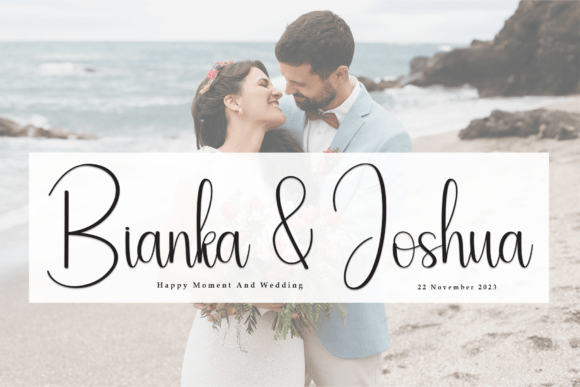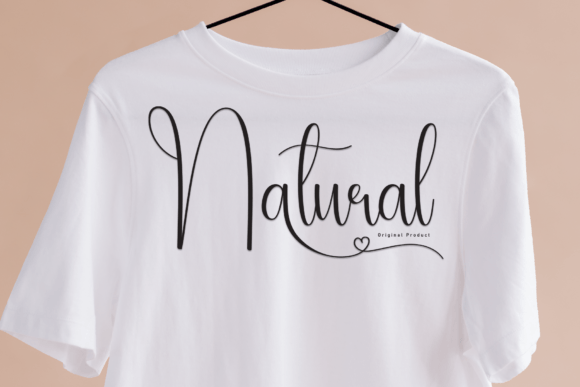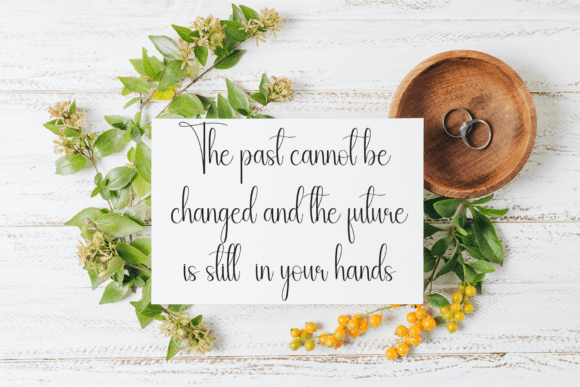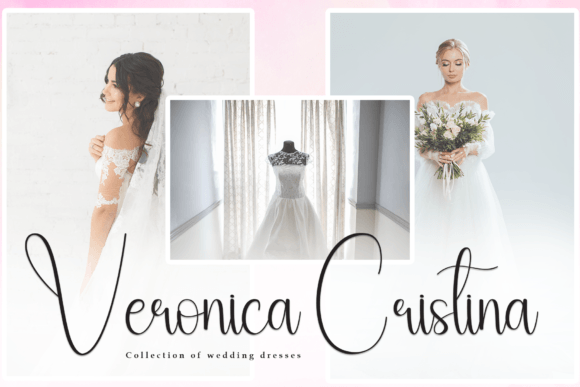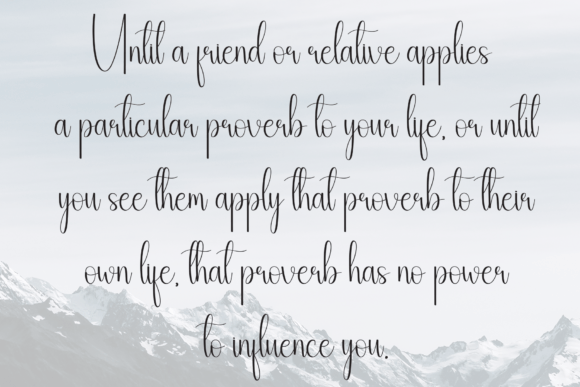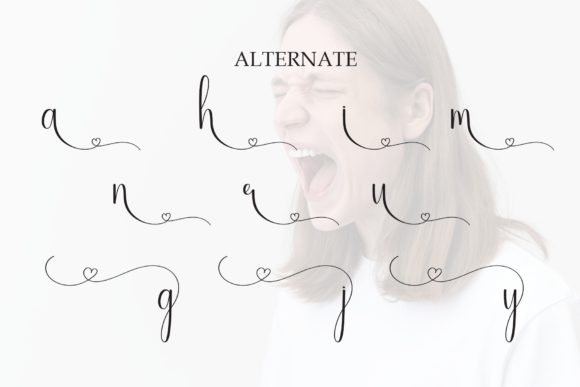
Introduction to Screaming Font
Have you ever been working on a creative project and just needed that one perfect font to bring it all together? I’m sure you have, and for many designers, that moment is what makes all the late nights and early mornings worth it. I still remember the feeling of excitement I got when I stumbled upon the perfect font for my best friend’s wedding invitation – and that’s exactly where our story begins with the lovely Screaming Font.
This sweet and friendly handwritten display font is a game-changer for any design project that needs a fun touch. With its cute and playful style, the Screaming Font is perfect for writing wedding invitations, cards, or any other design that requires a dash of whimsy. Whether you’re looking for a free download or a high-quality design resource, this font is sure to delight.
What sets the Screaming Font apart is its versatility – it’s perfect for both digital and print designs, and even comes with a transparent background option for added flexibility. Whether you’re a seasoned designer or just starting out, this font is a valuable addition to your design arsenal, and I’m excited to share more about it with you.
Key Features of Screaming Font
- High-quality font with a unique, screaming design, perfect for creative projects that require attention-grabbing text.
- Designed to be highly legible, even at small font sizes, making it perfect for use in titles, headings, and other prominent design elements.
Honest Review: Screaming Font
I recently stumbled upon the Screaming Font while searching for a unique design resource for a creative project. I was excited to give it a try, and here’s my honest review.
- The high quality of the font is immediately apparent, with clean lines and a professional feel.
- The font may not be suitable for all types of projects, particularly those that require a more conservative or traditional look.
- The font can be a bit overwhelming if used in excess, so be sure to use it sparingly.
Overall, I’m impressed with the Screaming Font. It’s a great addition to any designer’s toolkit, and I can see it being a valuable resource for a wide range of creative projects. Just be sure to use it thoughtfully and in moderation.
To get the most out of Screaming Font, use it sparingly to add emphasis to key points in your design. You can also experiment with different font sizes and colors to create a unique look.
Screaming Font is perfect for:
- Headlines and titles
- Emphasizing key points
- Adding a touch of drama to your designs